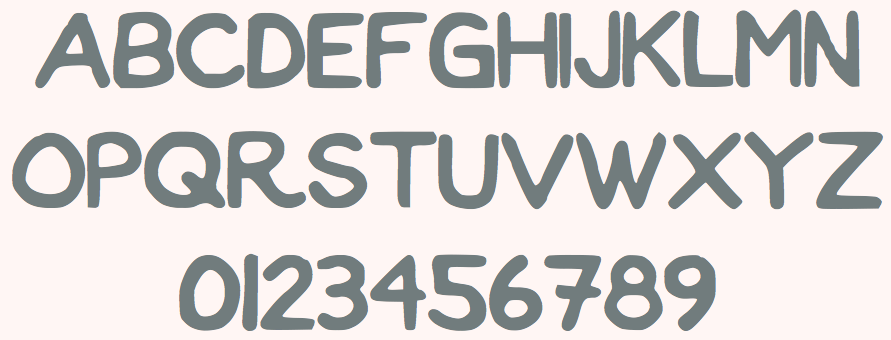
James Lafuente
Graphic designer in Seattle, WA (was: San Jose, CA), who created the free marker pen all caps typeface Parker (2014), Sergeant (2015, military stencil), Oak Ash (2015), and the hand-drawn Pearl District (2015).
Typefaces from 2016 include the handcrafted Kindling.
In 2017, he made 56th Street (free at Pixel Surplus).
Typefaces from 2019: Ignite (a condensed squarish all caps typeface).